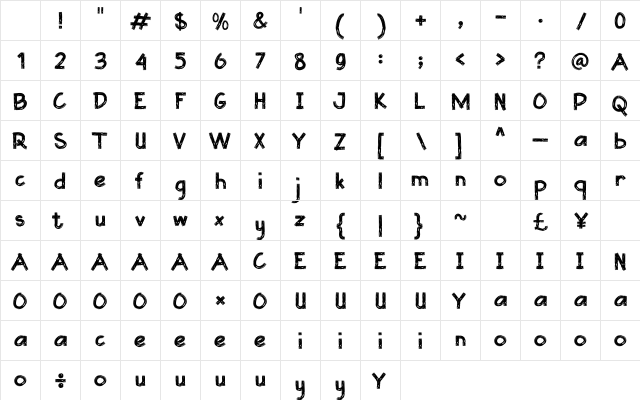
Complete Ministry Of Defense Regular glyph index. Displaying only characters natively supported by Ministry Of Defense Regular font.
Ministry Of Defense is a composed and adaptable typeface that performs quietly and consistently across a wide range of design contexts.